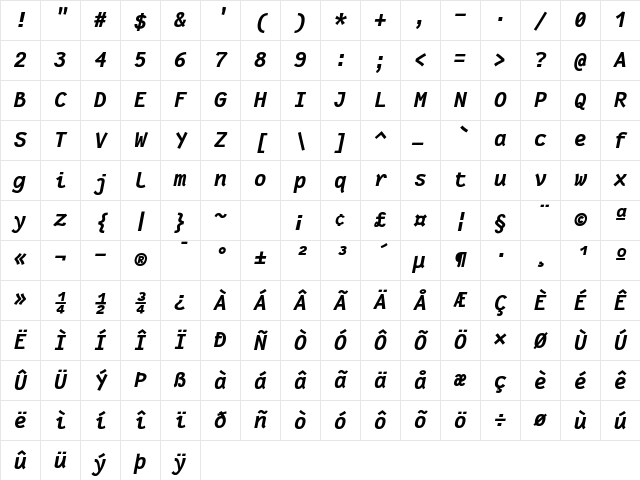
Fantasque Sans Mono Bold Italic
Designer: Jany Belluz
Complete Fantasque Sans Mono Bold Italic glyph index. Displaying only characters natively supported by Fantasque Sans Mono Bold Italic font.
Design Context for Fantasque Sans Mono
Fantasque Sans Mono uses fixed-width spacing throughout, giving it the structured, systematic character associated with coding environments and technical documentation. The slanted form adds forward momentum and visual energy. Its bold stroke weight gives it real presence on the page.